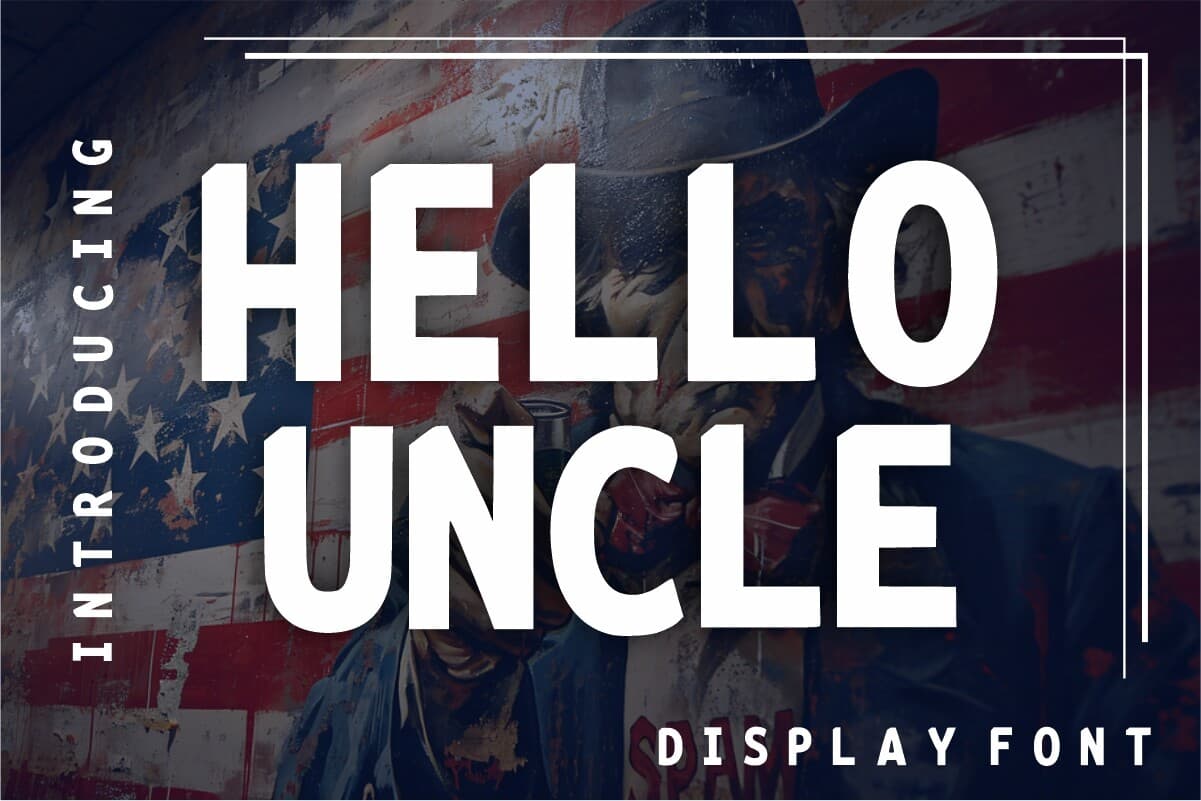
Unlocking Whimsy with Hello Uncle Font If you're on the hunt for a display font that radiates joy and creativity, look no further than "Hello Uncle." This delightful handwritten typeface is designed to inject a playful spirit into your projects, infu...